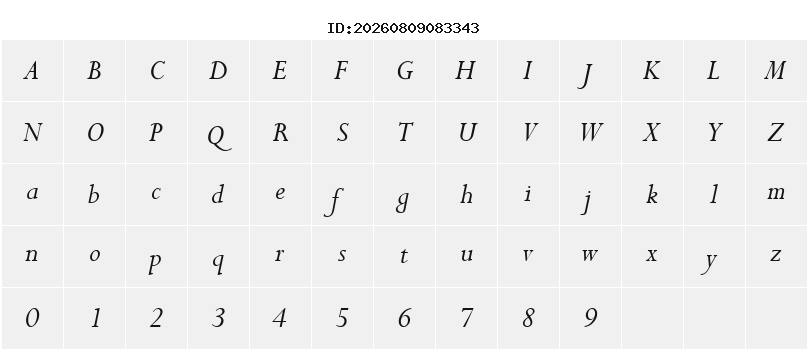
• Font Name: Perpetua
• Font Style: Italique
• Designer: Eric Gill
• Manufacturer: Monotype Typography
• Description: A sensitive adaptation of a style of letter that had been popularized for monumental work in stone by Eric Gill. Large scale drawings by Gill were given to Charles Malin, a Parisian punch-cutter, and his hand cut punches were the basis for the font issued by Monotype. The incised quality of Perpetua will lend distinction to any work compatible with its serenity. First used in a private translation called 'The Passion of Perpetua and Felicity'; the italic was originally called Felicity. Widely used as a text face in quality books, Perpetua is also very popular in advertising and display work.